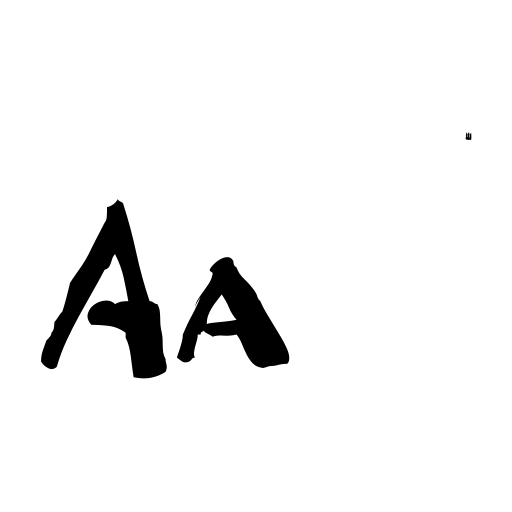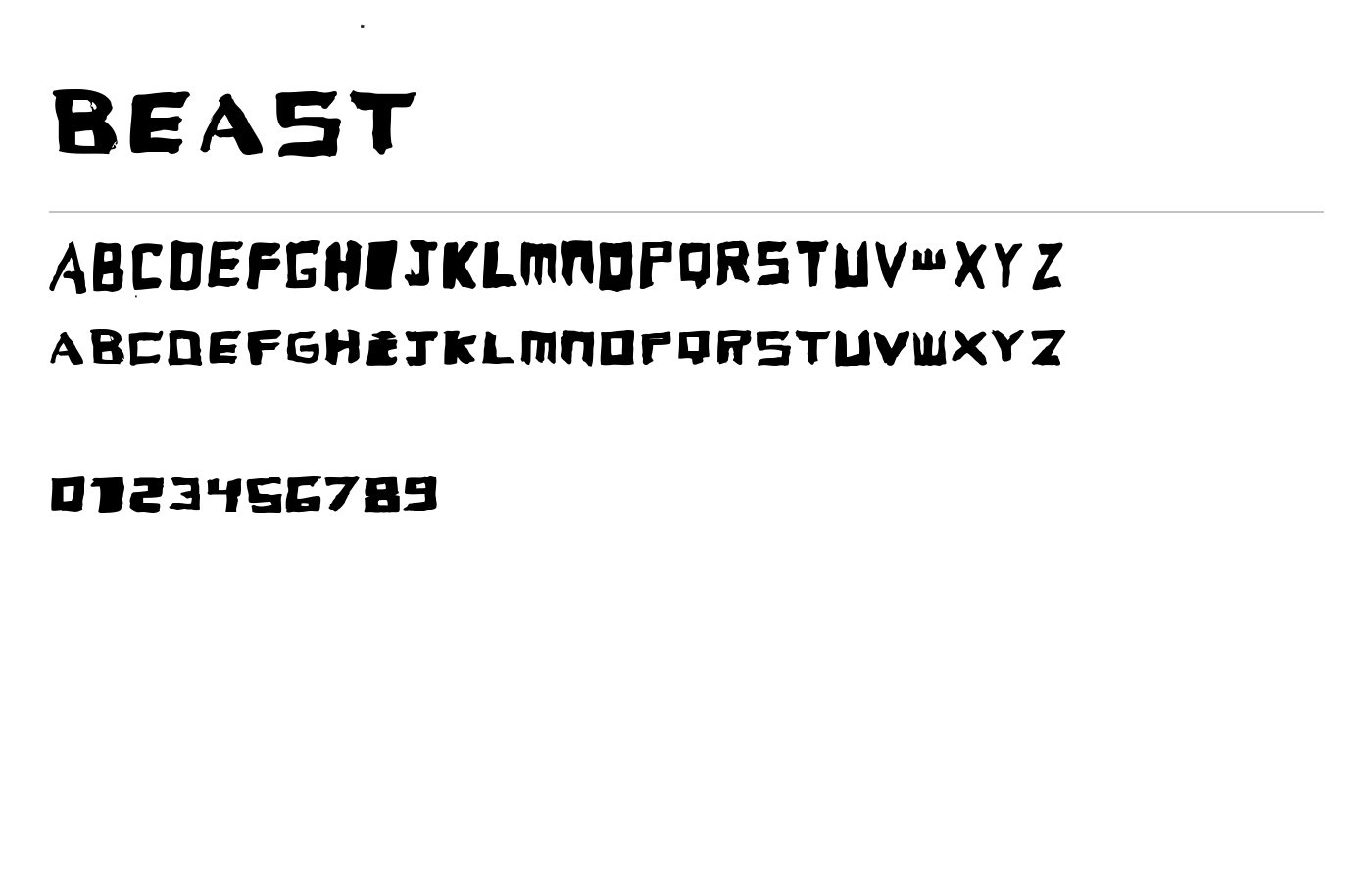
Beast Font is a bold, quirky display typeface with a rough, hand-drawn feel that gives it a wild, untamed personality. Its irregular shapes and wide letterforms make it perfect for eye-catching headlines, posters, or branding that aims to convey energy, creativity, and a playful yet edgy vibe. This font works well for projects needing a distinctive, adventurous look that stands out with its unique, expressive style.
beast Font
About beast Font